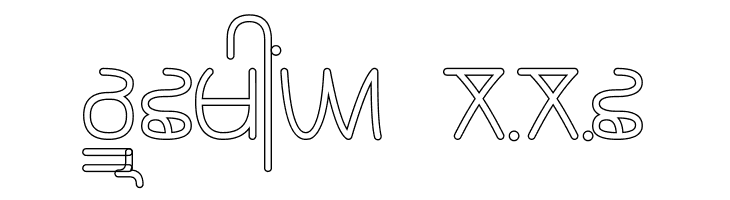
Artificial Intelligence PERSONAL USE Regular Font
- Font: Artificial Intelligence PERSONAL USE Regular
A modern, outline-style font with smooth, continuous lines and a geometric structure.